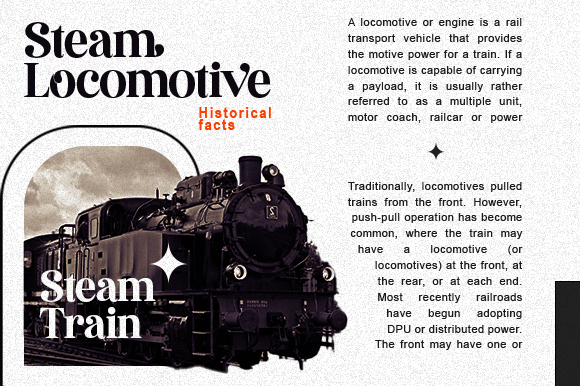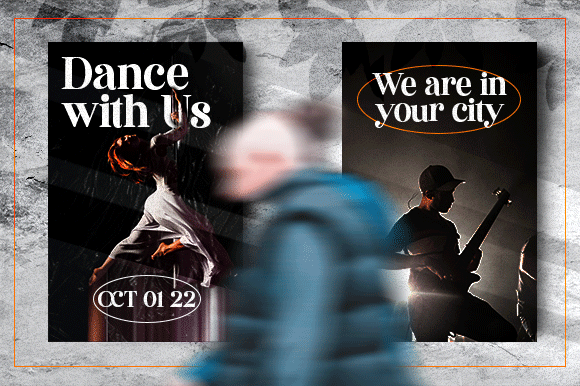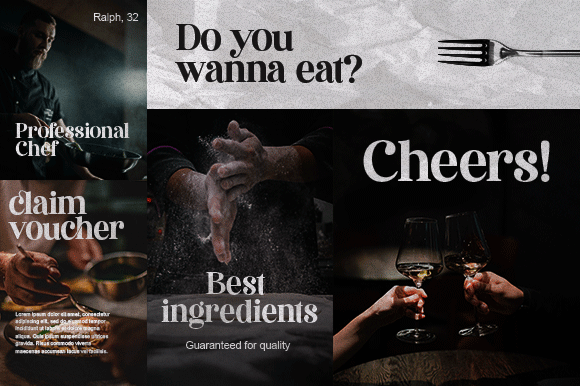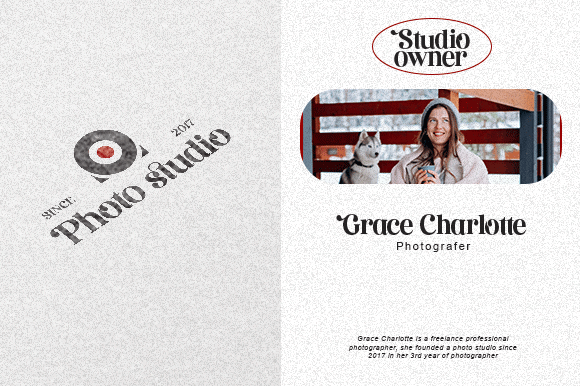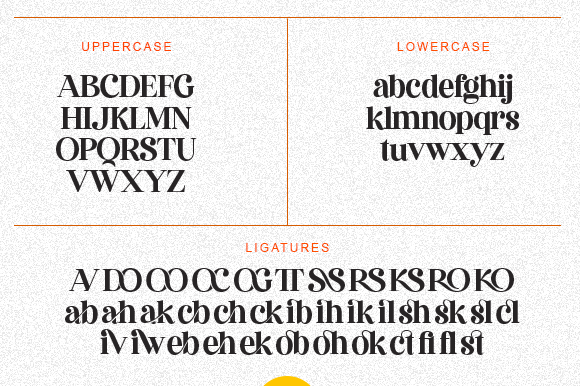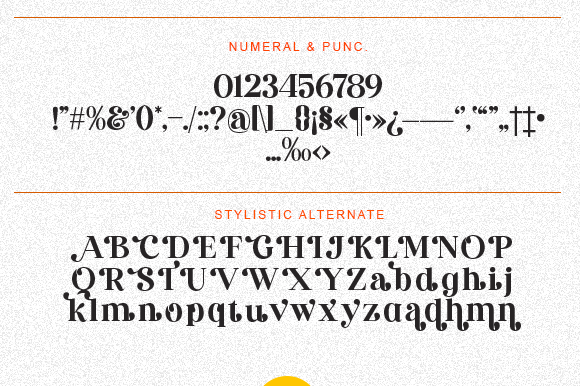
Introducing Balika Font: The Ultimate Choice for Bold and Trendy Designs
Are you a designer or crafter looking for a font that can elevate your projects to the next level? Look no further than Balika Font, a bold, trendy, and thick lettered serif font that’s perfect for a wide range of applications. In this article, we’ll explore the features and benefits of Balika Font, and show you how it can be used to create stunning designs that grab attention.
What is Balika Font?
Balika Font is a carefully crafted font that’s designed to make a statement. Its bold and thick lettering gives it a unique and eye-catching appearance, making it perfect for projects that require a touch of personality. Whether you’re working on a modern design or a retro vintage project, Balika Font is the perfect choice.
Key Features of Balika Font
- Bold and Trendy: Balika Font is a bold and trendy font that’s perfect for making a statement.
- Thick Lettered: The font’s thick lettering gives it a unique and eye-catching appearance.
- Serif Font: Balika Font is a serif font, which means it has small lines or flourishes at the ends of the letters.
- PUA Encoded: The font is PUA encoded, which means you can access all of the glyphs and swashes with ease.
What Can I Use Balika Font For?
Balika Font is a versatile font that can be used for a wide range of projects, including:
- Modern Design: Use Balika Font to create modern and sleek designs that grab attention.
- Retro Vintage Design: The font’s bold and thick lettering makes it perfect for retro vintage designs.
- Branding: Use Balika Font to create stunning brand logos and identities.
- Logos: The font is perfect for creating unique and eye-catching logos.
- Crafting: Balika Font is perfect for crafters who want to add a touch of personality to their projects.
- Stickers: Use the font to create stunning stickers that grab attention.
- Sublimation: Balika Font is perfect for sublimation projects, such as custom t-shirts and mugs.
- Wedding Invitations: The font’s elegant and sophisticated appearance makes it perfect for wedding invitations.
Benefits of Using Balika Font
There are many benefits to using Balika Font, including:
- Ease of Use: The font is easy to use and can be accessed with ease, thanks to its PUA encoding.
- Versatility: Balika Font can be used for a wide range of projects, making it a great addition to any designer’s toolkit.
- Unique Appearance: The font’s bold and thick lettering gives it a unique and eye-catching appearance that sets it apart from other fonts.
- Time-Saving: With Balika Font, you can save time and effort by using a single font for multiple projects.
Tips for Using Balika Font
Here are some tips for using Balika Font:
- Experiment with Different Sizes: Try using Balika Font in different sizes to see how it looks.
- Pair it with Other Fonts: Experiment with pairing Balika Font with other fonts to create stunning combinations.
- Use it for Headlines: The font’s bold and thick lettering makes it perfect for headlines and titles.
- Add Swashes and Glyphs: With its PUA encoding, you can easily add swashes and glyphs to give your designs a touch of personality.
In conclusion, Balika Font is a bold, trendy, and thick lettered serif font that’s perfect for a wide range of projects. Its versatility, ease of use, and unique appearance make it a great addition to any designer’s toolkit. Whether you’re working on a modern design or a retro vintage project, Balika Font is the perfect choice. So why wait? Download Balika Font today and start creating stunning designs that grab attention!